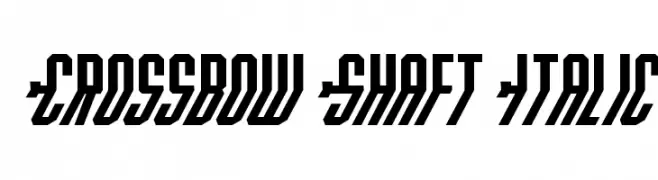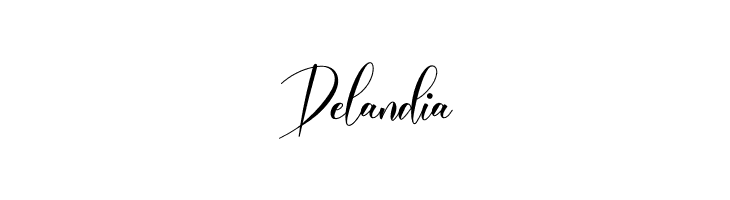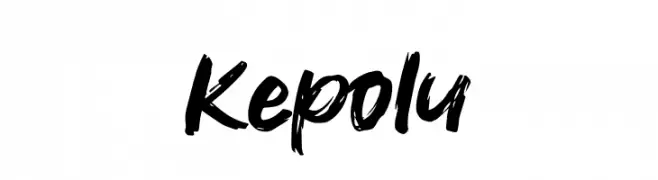
A bold, cursive script font with a dynamic, italic style.
A bold, left-leaning geometric font with a dynamic and energetic style.
A casual, handwritten font with a playful and informal style.
A modern, semi-italic font with bold, angular characters.
A bold, distressed font with a textured, rugged appearance.
A flowing, elegant cursive font with smooth, connected strokes.
A bold, italicized font with sharp, angular lines and a futuristic style.
A bold, decorative font with a unique striped pattern for impactful designs.
A bold, angular font with a futuristic and dynamic style.
An elegant, decorative script font with ornate swirls and heart motifs.